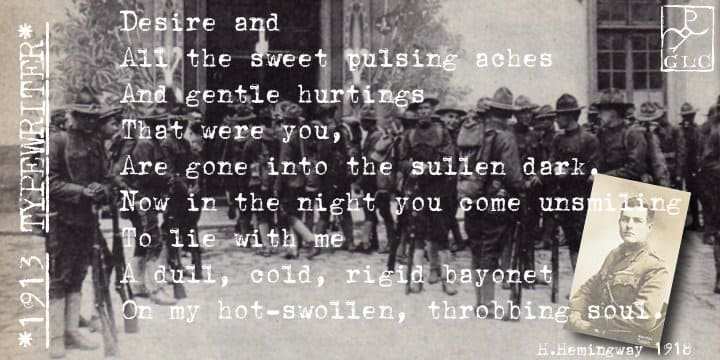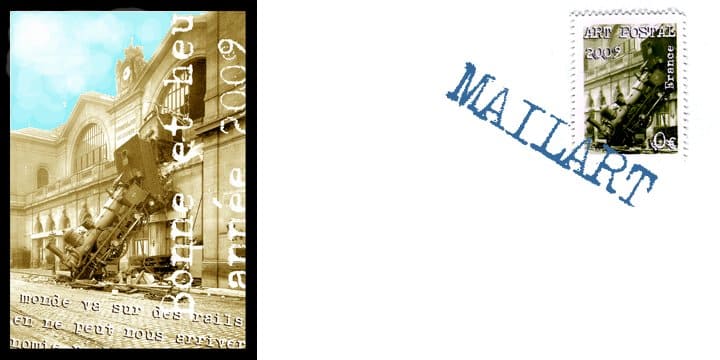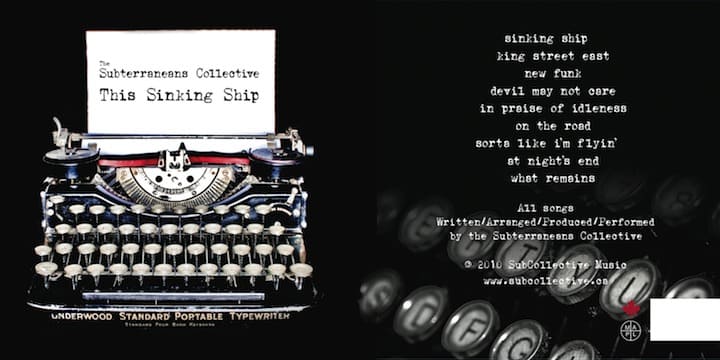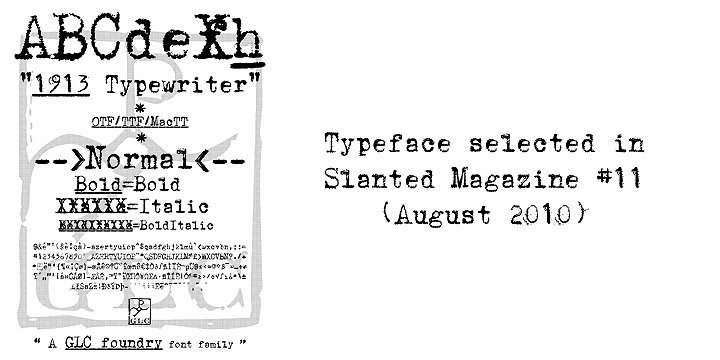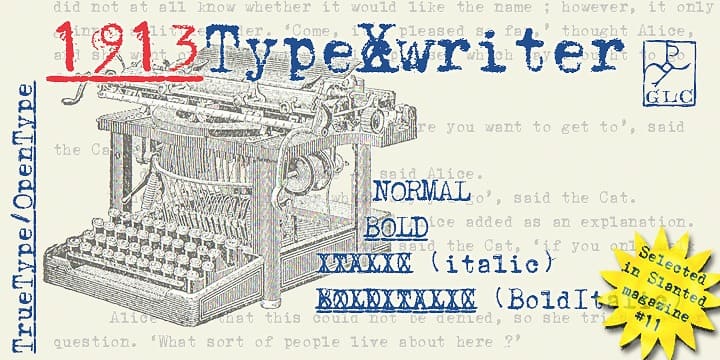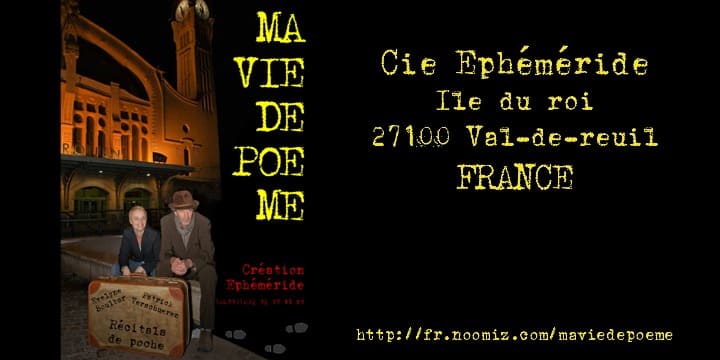
1913 Typewriter Family (4 fonts)
This font was patterned after a few characters on a genuine old 1913 small portable typewriter.
It looks like those early typescripts, rough, irregular and eroded, suggestive of mythical famous authors, such as Hemingway, as well as “serie noire” movies or anonymous state employee working in a gloomy Kafkaesque office. It is a complete alphabetic full font. It can be used as web-site titles, poster design, or book editing.
It may be preferable, if possible, when printing, to choose a pale color a little rather than condensed - dark grey instead of heavy black, for example - to give the best appearance and to benefit from the full details. The old typewriter character size is 11 to 12 points, but this font easily supports enlargement.